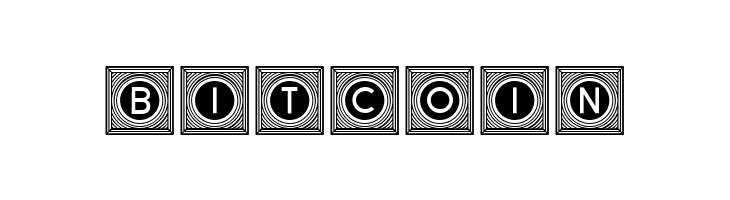
Bold uppercase letters in a decorative square border with a vintage geometric style.
A bold, decorative font with uppercase letters enclosed in square borders, offering a vintage and structured look.
A bold, decorative font with uppercase letters in circular borders, offering a vintage, industrial feel.
Hand-drawn wavy lines and outlined square placeholders.
A spooky, decorative font with a Halloween theme, featuring circular saw borders and crow accents.
A bold, playful dingbat font with baby and nature-themed icons.
A decorative font with bold letters encased in thorny, circular borders.
A decorative font with bold uppercase letters encased in ornate circular borders.
A whimsical, hand-drawn decorative line design with arrows, hearts, and starbursts.
The image contains decorative ornaments, not a functional font.
Intricate ornamental elements with a vintage calligraphic style.
Ornamental flourishes with a vintage, decorative style.
An ornate, medieval-inspired font with sharp serifs and intricate detailing.
A decorative, gothic-inspired font with diamond embellishments and bold, intricate details.
A bold, gothic-style font with intricate, ornamental details.
An ornate, gothic-style font with intricate details and sharp serifs.
An ornate, gothic-style font with thin, angular lines and decorative details.
A decorative dingbat font with bold floral, heart, and smiley icons.
A decorative serif font with ornate monogram-style borders around uppercase letters.
A classic serif monogram font with decorative diamond borders.
A bold, outlined typeface with geometric forms and clear borders.
A whimsical collection of decorative elements featuring hearts, arrows, and banners.
A bold, geometric font with a 3D effect and enclosed in square borders.
Ornate decorative elements and flourishes in a hand-drawn style.
A bold, decorative font with nature-inspired ornamental elements.
A decorative floral and geometric symbol font with unique flower and box glyphs.
Ornamental dingbat font with spirograph shapes and bold rectangles.
Whimsical hand-drawn decorative dingbats with floral and ornate motifs.
Outline emoticon icons with bold, circular borders and varied expressions.
A decorative font showcasing detailed zodiac sign illustrations within bordered shapes.
Ornamental font with diverse Celtic knotwork symbols.
Ornamental font with diverse fleur-de-lys motifs.
Ornamental font with decorative tile patterns for each character.
Intricate geometric patterns with symmetrical and ornate designs.
Hand-drawn botanical and geometric decorative set.